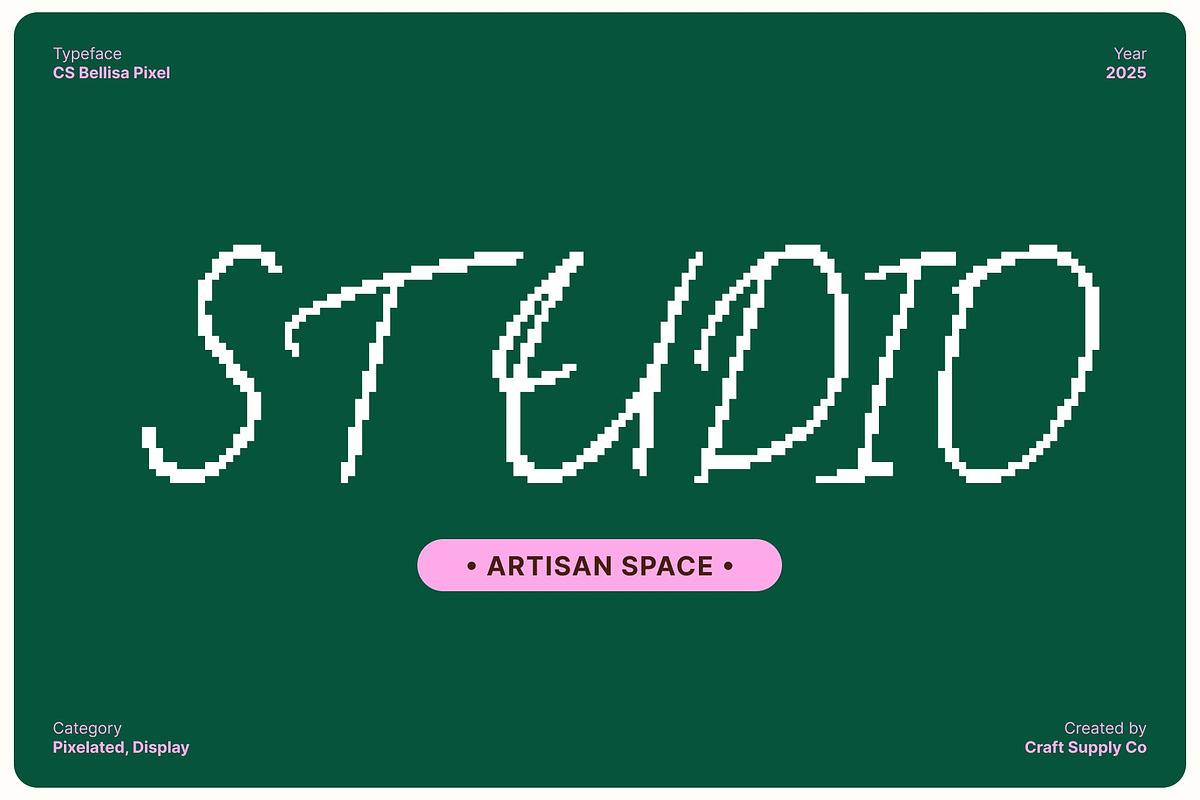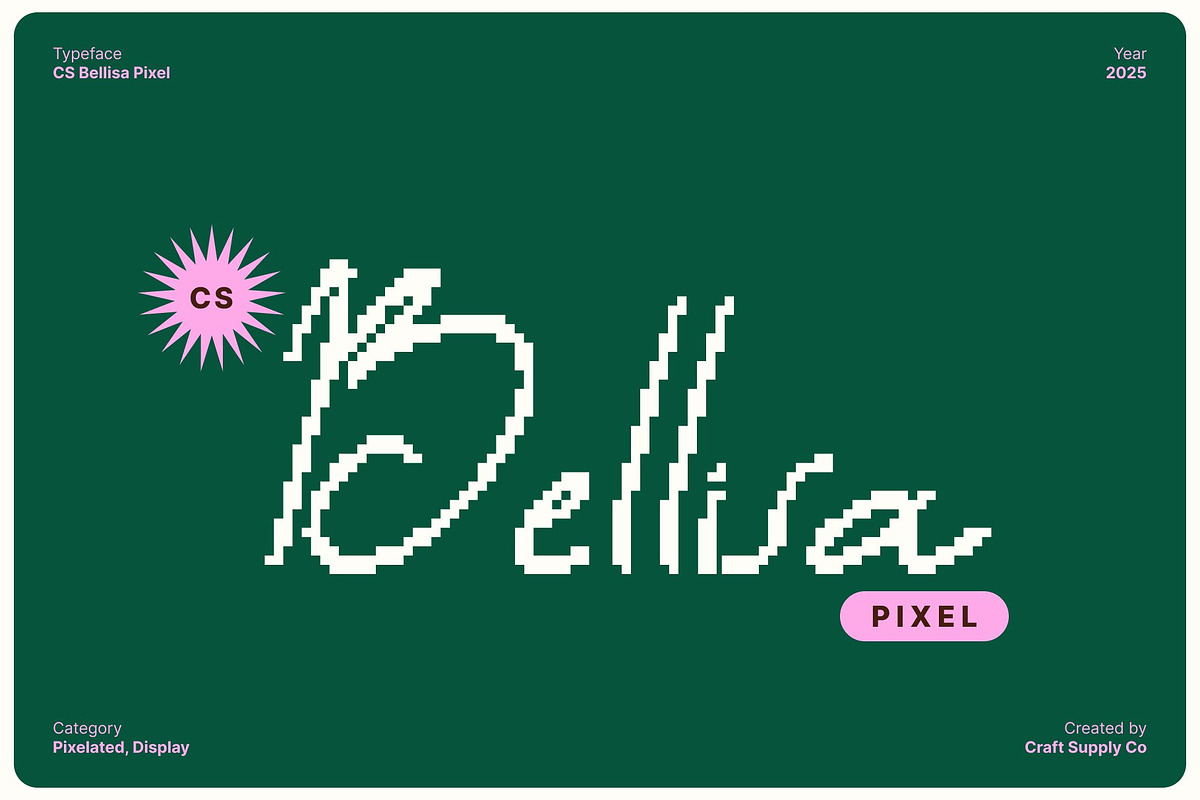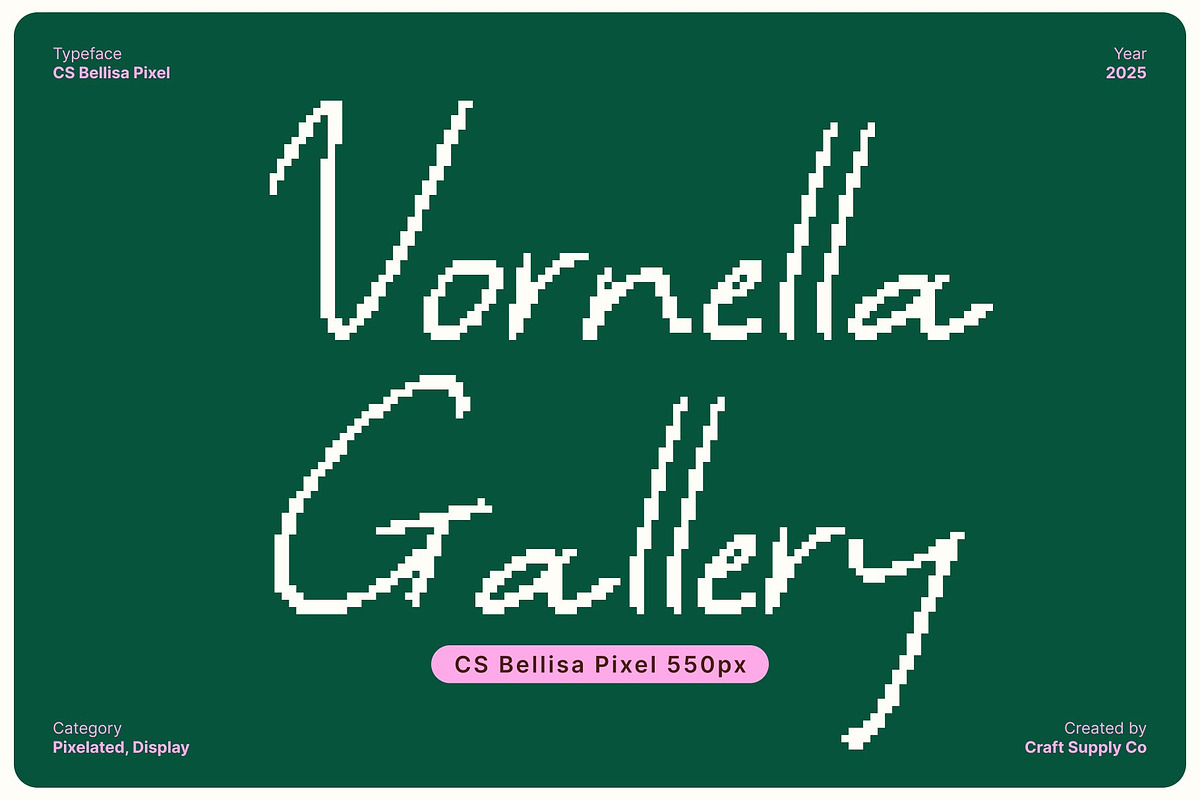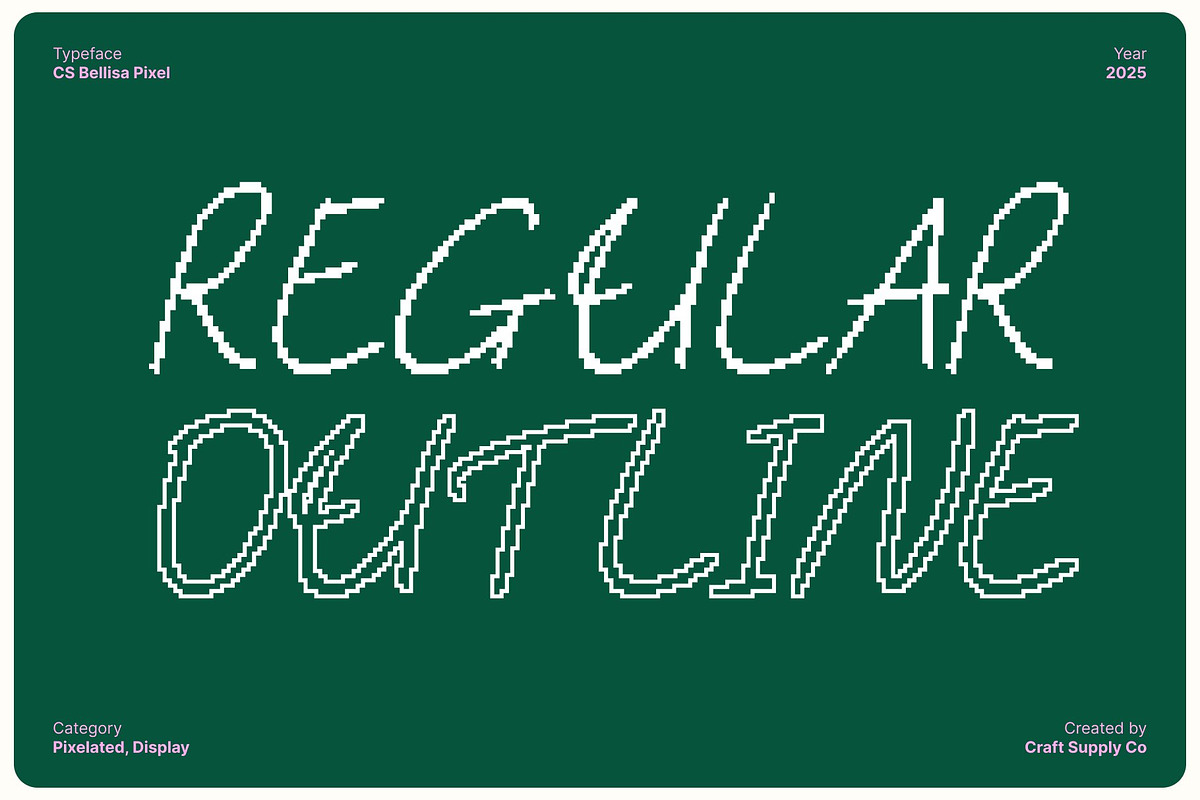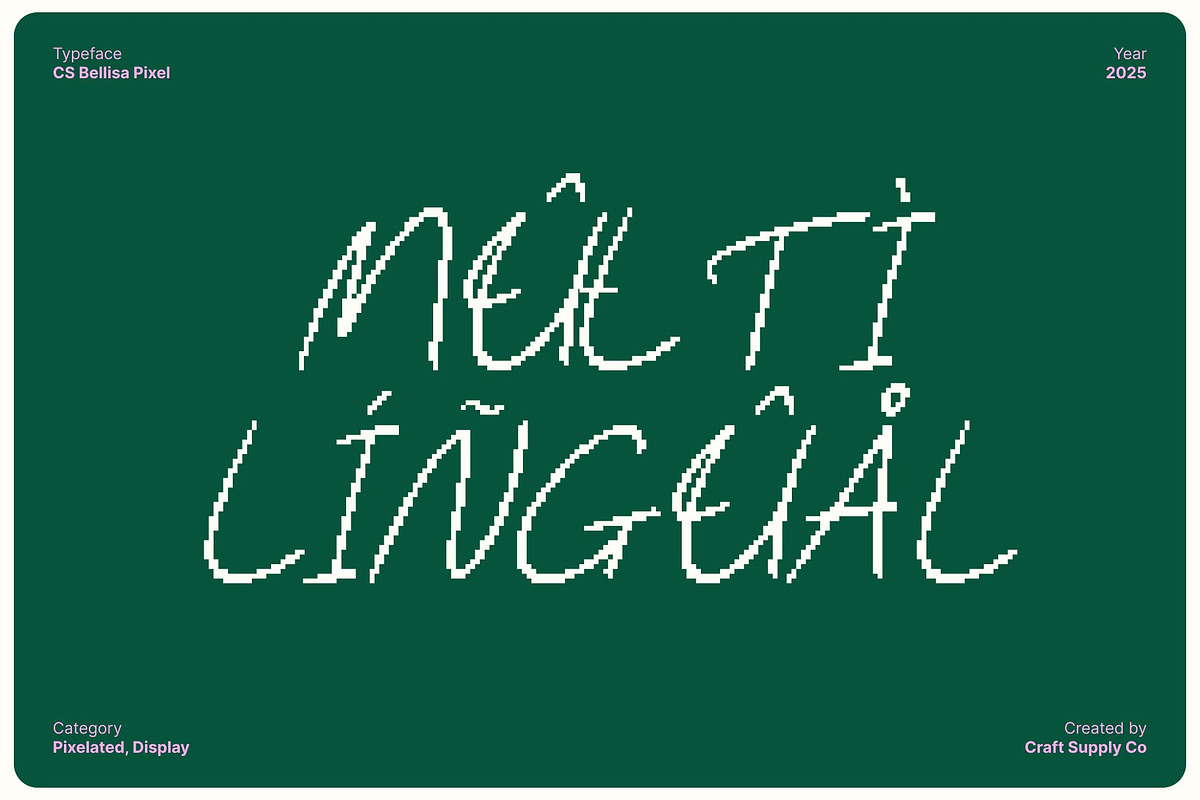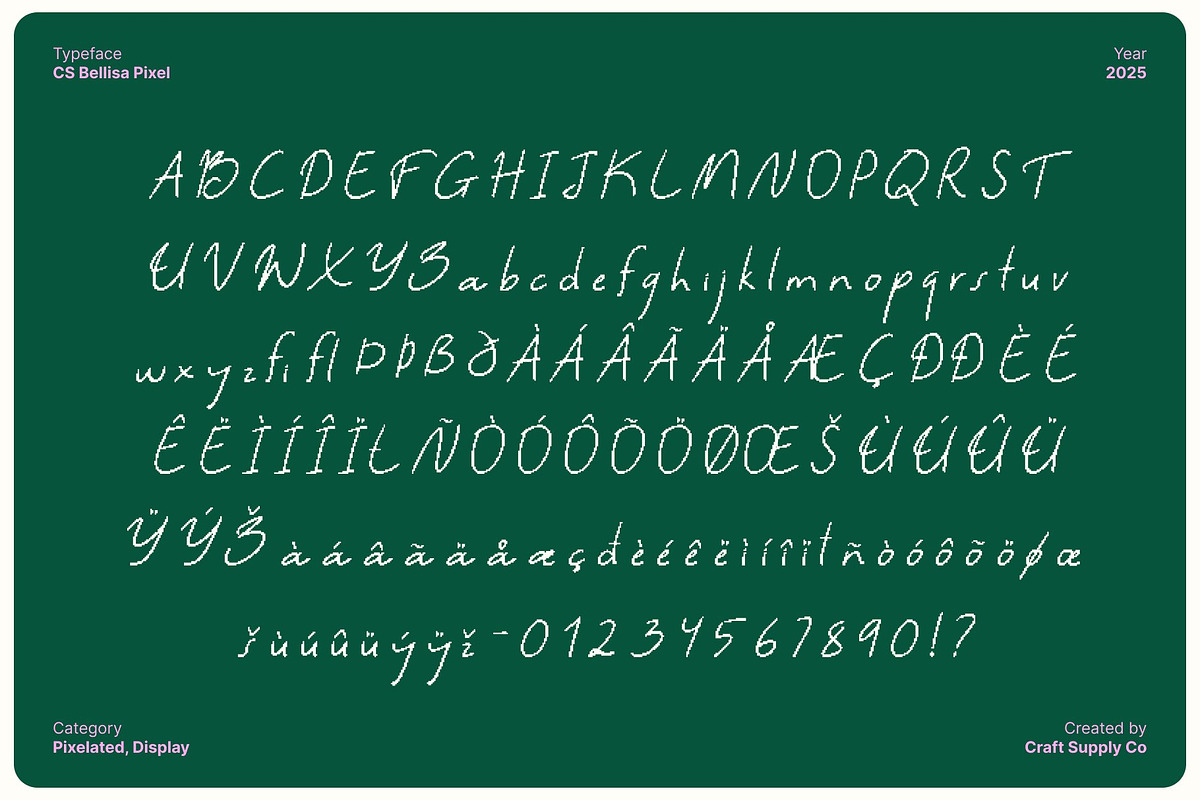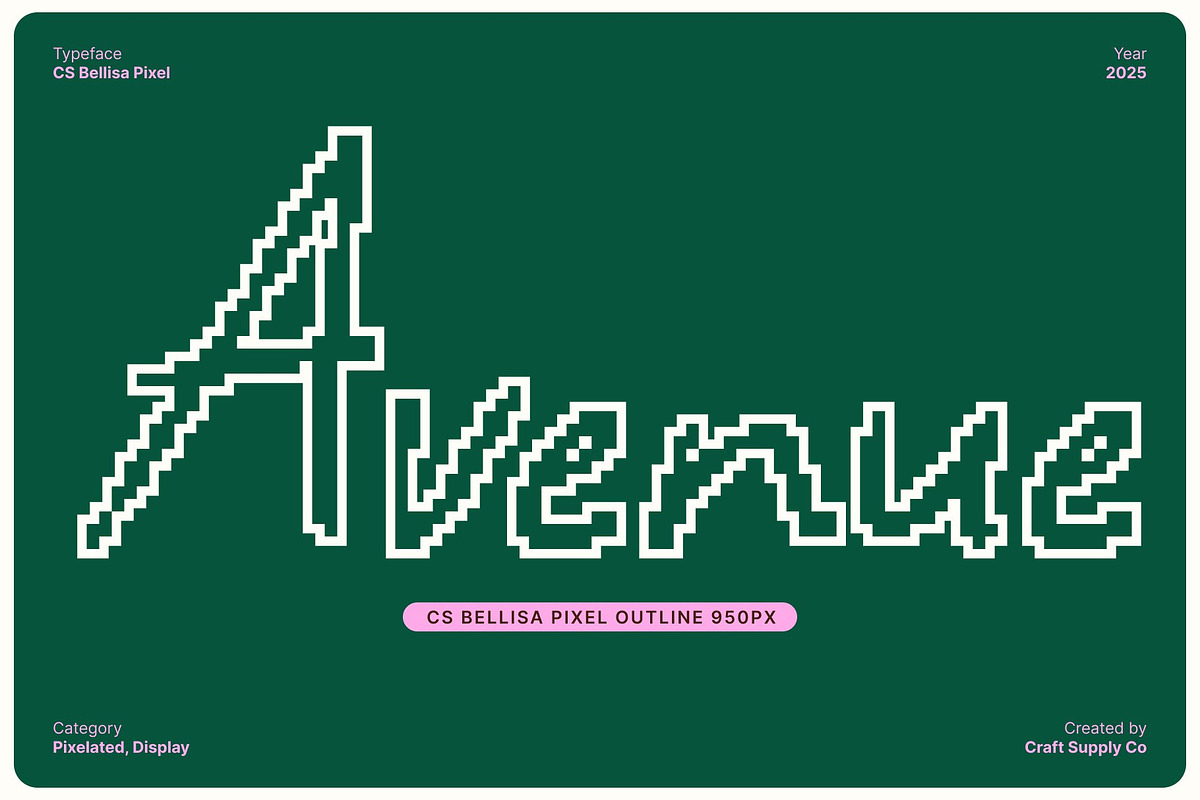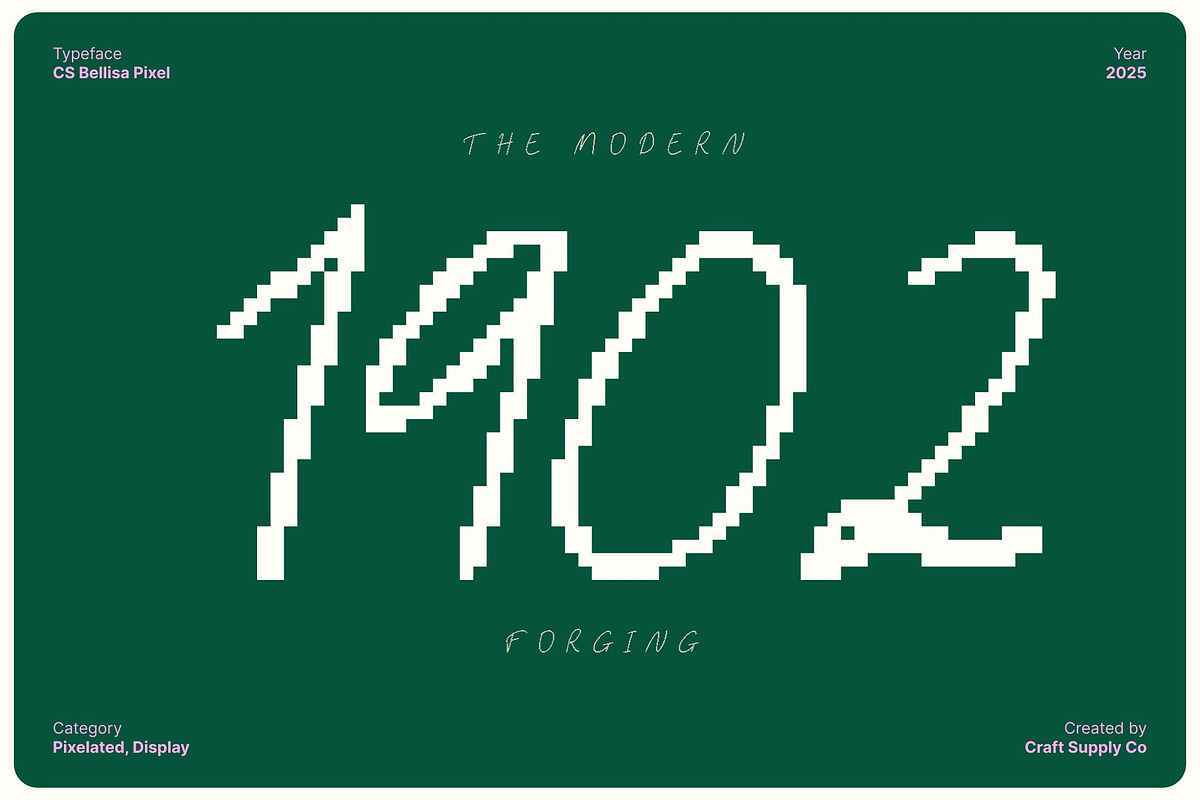
CS Bellisa Pixel
CS Bellisa Pixel – Beautiful Handwritten Pixel Font with a Cute Digital Vibe
A Beautiful Blend of Pixel Art and Handwritten Charm This font combines the softness of handwritten lettering with the nostalgic appeal of pixel graphics, creating a typeface that feels sweet, charming, and visually unique. Designed with a feminine, youthful tone, every character carries a cute handwritten expression while showcasing a delightful pixelated structure.
Pixelated Style with a Lovely, Retro Digital Feel The pixel-based shapes give the font a classic retro aesthetic inspired by early digital art and 8-bit visuals. Each letter is crafted to maintain clarity while still embracing the playful of pixel design. Perfect for projects that want a touch of nostalgia wrapped in a fresh, stylish presentation.
Handwritten Details for a Soft, Girly Personality What makes this font stand out is its handwritten influence. Gentle curves, charming imperfections, and organic flow make the typeface feel personal and expressive. The soft, girly handwritten look pairs beautifully with the pixel texture, creating a warm and lively tone that enhances anything from cute branding to characterful display design.
Perfect for Posters, Branding, and Creative Digital Projects Whether you’re designing playful posters, charming branding assets, social media content, or retro digital graphics, delivers a fun and visually striking look. Its blend of pixel nostalgia and handwritten sweetness makes it ideal for projects that need a classic, youthful, and aesthetically pixel-perfect style.